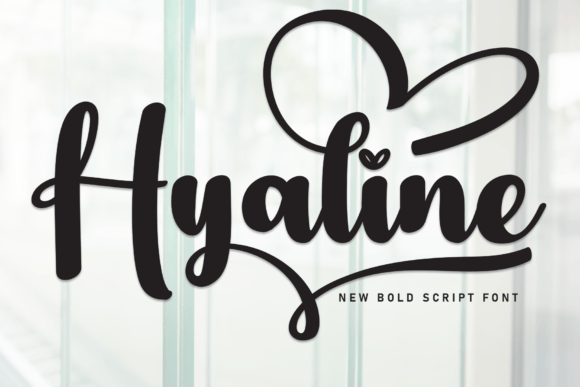
Introducing Hyaline Font: A Timeless Handwritten Masterpiece to Elevate Your Creative Vision
In a world where fonts have become mere tools, Hyaline Font emerges as an exquisite symphony of art and elegance, ready to transform your digital creations into breathtaking masterpieces. Crafted with meticulous attention to detail by the renowned andikastudio, Hyaline Font is a testament to the enduring power of timeless beauty.
Hyaline Font belongs to the esteemed family of script fonts, renowned for their captivating flow and undeniable charm. Each letter, meticulously designed, carries a unique personality, adding a touch of individuality to your every word. With Hyaline Font, your designs will transcend the ordinary, captivating your audience with their effortless grace and sophisticated allure.
As the perfect font for brochure text, Hyaline Font possesses an inherent ability to weave together words and images into a tapestry of visual delight. Its elegant curves and graceful strokes dance across the page, inviting readers to delve into the depths of your message. Whether you're crafting marketing materials, creating captivating presentations, or simply sharing your thoughts and ideas, Hyaline Font will elevate your words, transforming them into an unforgettable experience.
Beyond its practical applications, Hyaline Font is a true artist's companion. Its versatility knows no bounds, seamlessly adapting to a myriad of creative endeavors. Use it to design eye-catching logos that leave a lasting impression, infuse your branding with a touch of timeless elegance, or let your creativity soar as you craft inspiring quotes that resonate with your audience. With Hyaline Font, the possibilities are endless.
Embrace the timeless beauty of Hyaline Font, and watch as your creative vision takes flight. Let its exquisite characters add a touch of magic to your designs, captivating your audience with their undeniable charm. Discover the endless possibilities that await you as you unlock the full potential of Hyaline Font.